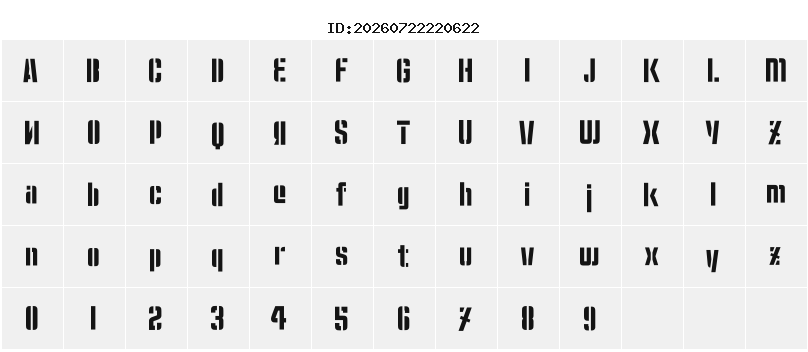
• Font Name: Moshka
• Font Style: Stencil
• Full Font Name: Moshka-Stencil
• Designer: Julius Woodard
About Moshka.otf
Moshka.otf is a modern, elegant sans-serif font designed for ultimate readability and visual harmony. Perfect for branding, headlines, web design, and print materials.